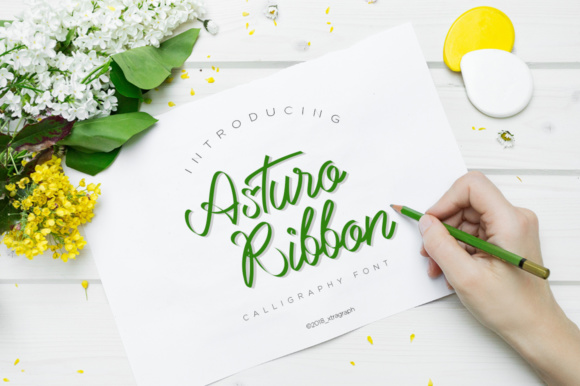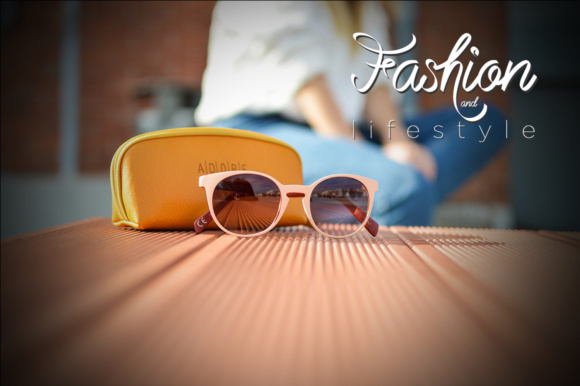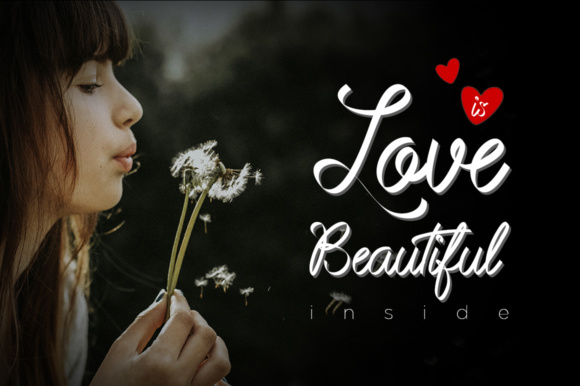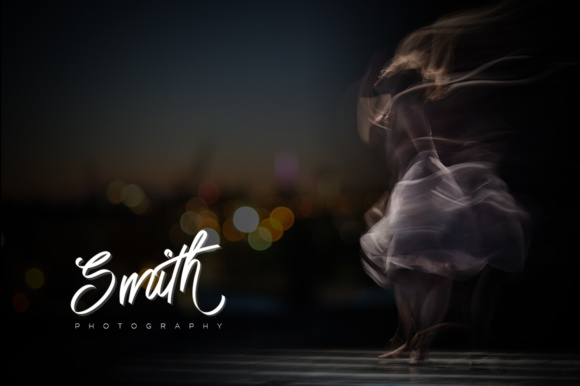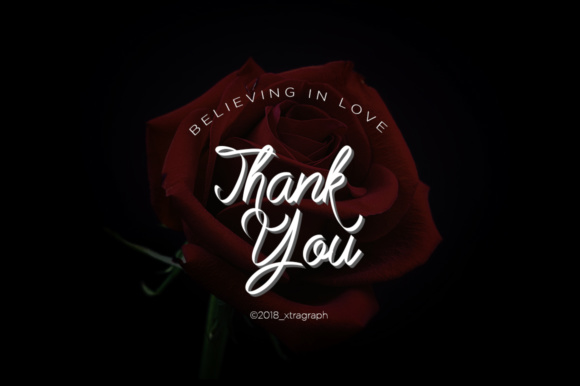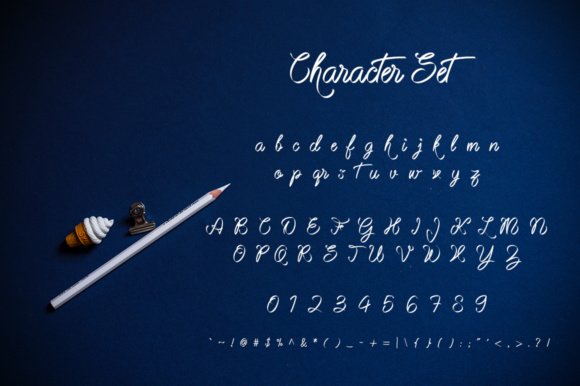
Asturo Ribbon Font
Asturo Ribbon can be used for various purposes such as wedding invitations, fashion magazines, logos, signatures, and is also suitable for watermark photography.